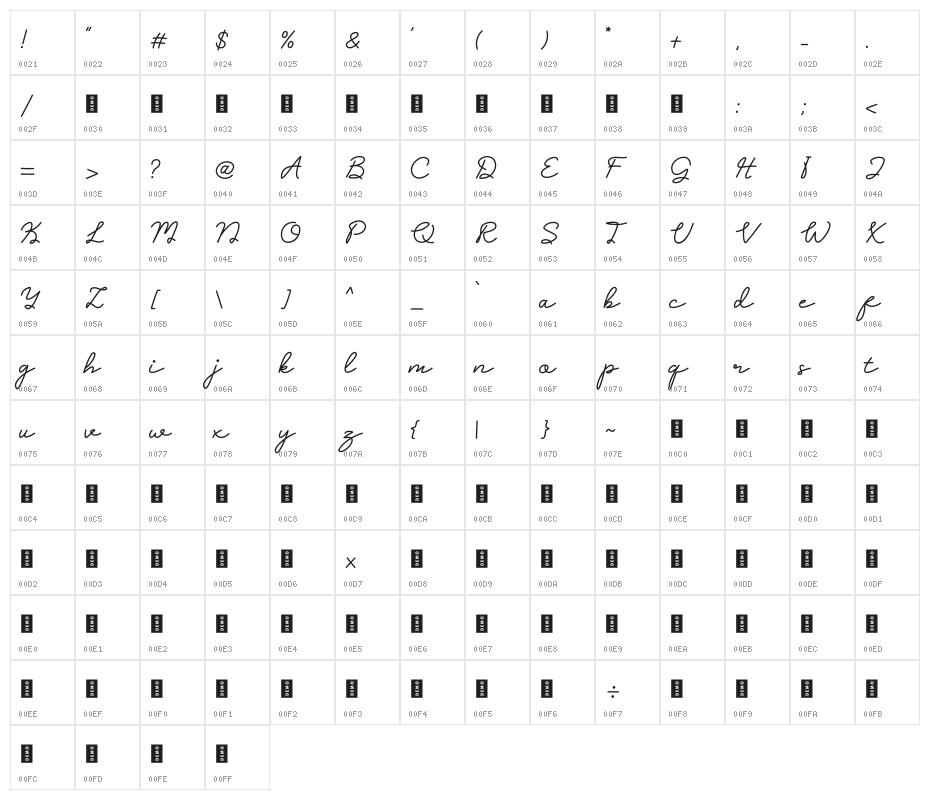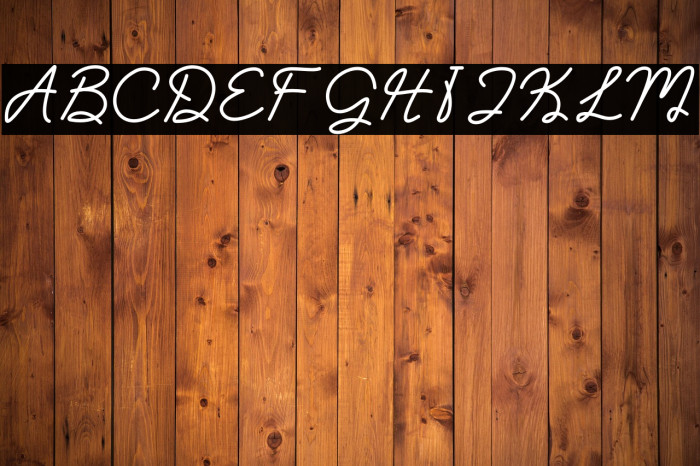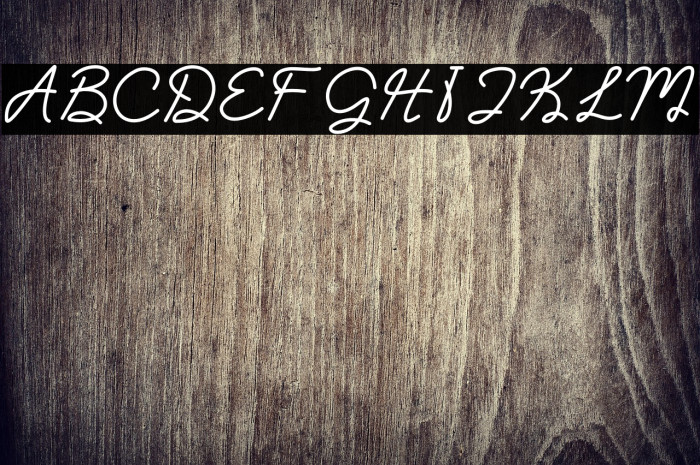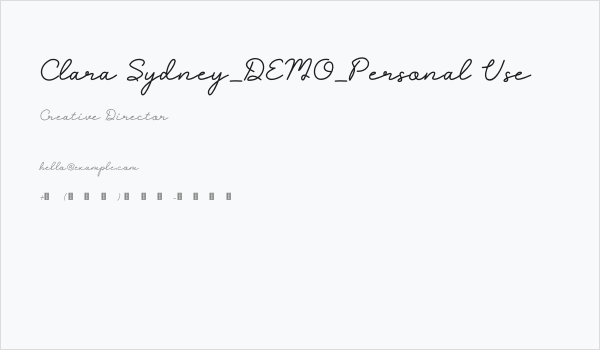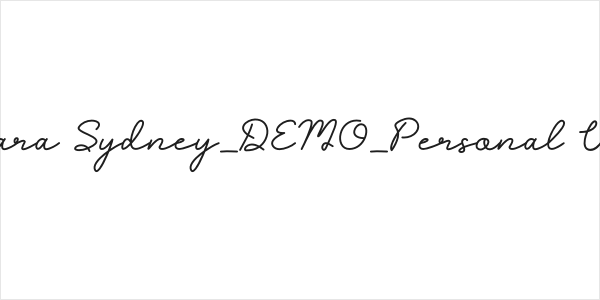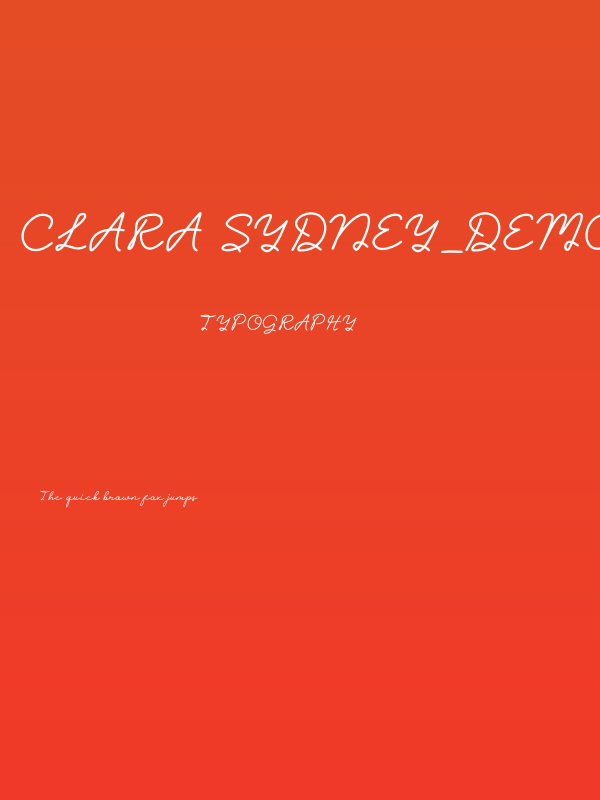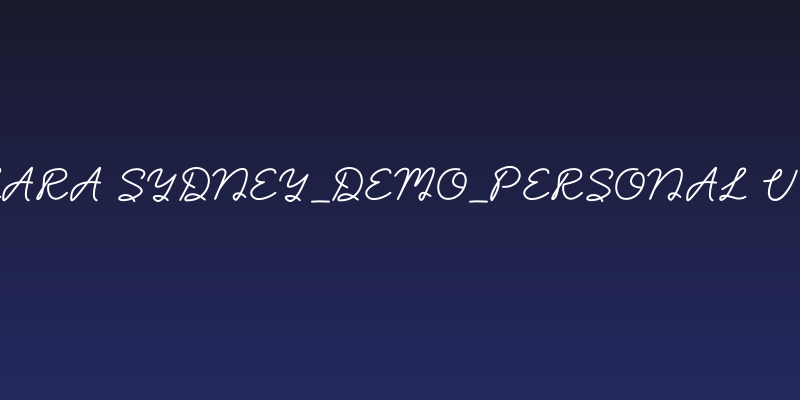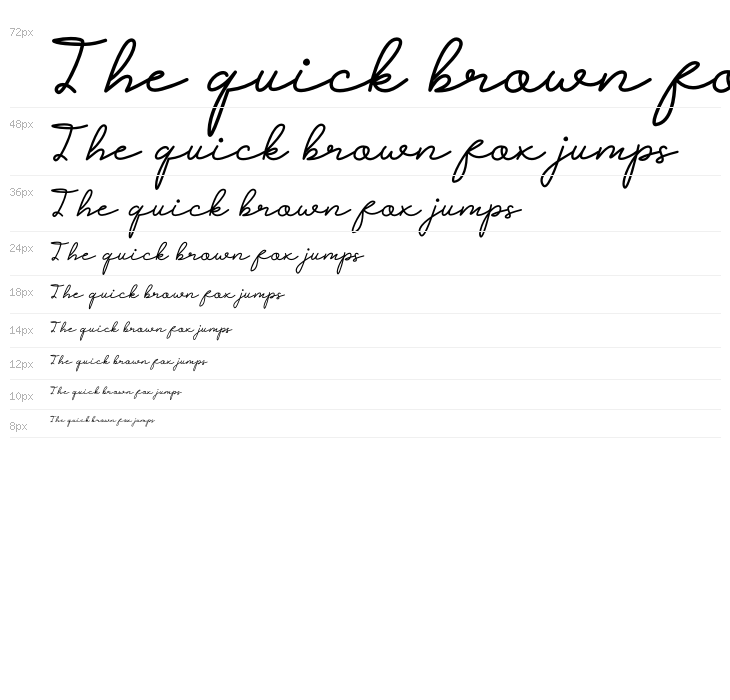
Clara Sydney_DEMO_Personal Use Font
Clara Sydney_DEMO_Personal Use Description
This elegant script font features fluid, connected strokes that mimic the natural flow of handwriting. The uppercase letters are slightly more ornate, with subtle flourishes that add a touch of sophistication. The lowercase letters maintain a consistent, smooth rhythm, enhancing readability while preserving the font's artistic flair. The numerals and special characters are designed to complement the overall style, ensuring a cohesive look across all text elements. This font's delicate curves and balanced proportions make it suitable for a variety of design applications.
| Use Case | Logos, Invitations, Stationery |
| Proposed Projects | Ideal for wedding invitations, greeting cards, branding projects, and elegant stationery. |